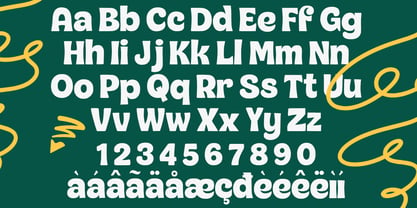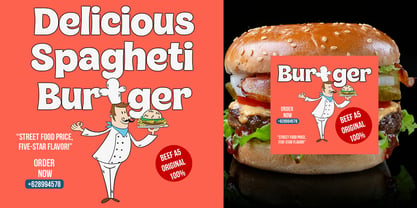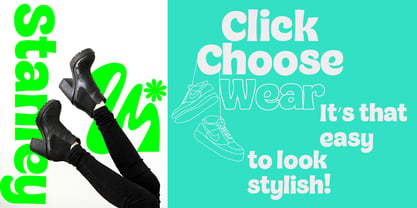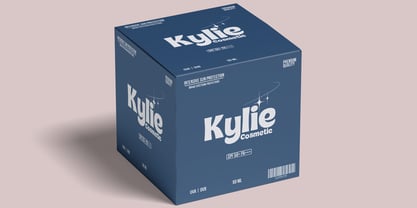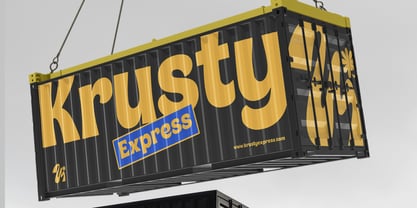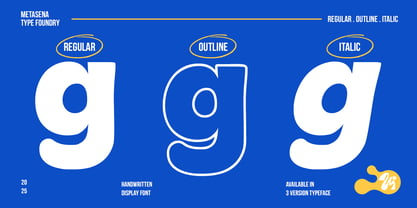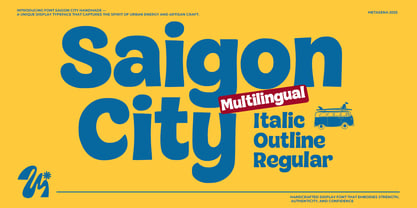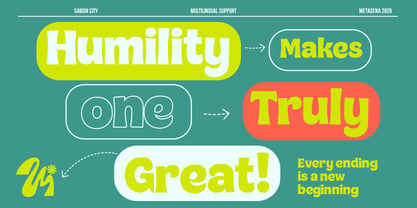
Saigon City
by Metasena Typefoundry
The Saigon City Font Family was designed by Ainal Mardiah and published by Metasena Typefoundry. Saigon City contains 3 styles and family package options. More about this family
SAIGON CITY is a bold display font that radiates strength, urban energy, and modern character. With its strong, confident letterforms, this typeface is designed to grab attention and make a lasting impression. Saigon City is perfect for posters, logos, headlines, packaging, and branding projects that aim to capture the spirit of the city and creative street culture. Every curve and line reflects the dynamic vibe of a modern metropolis, making it ideal for designs that demand a bold, powerful, and professional look.